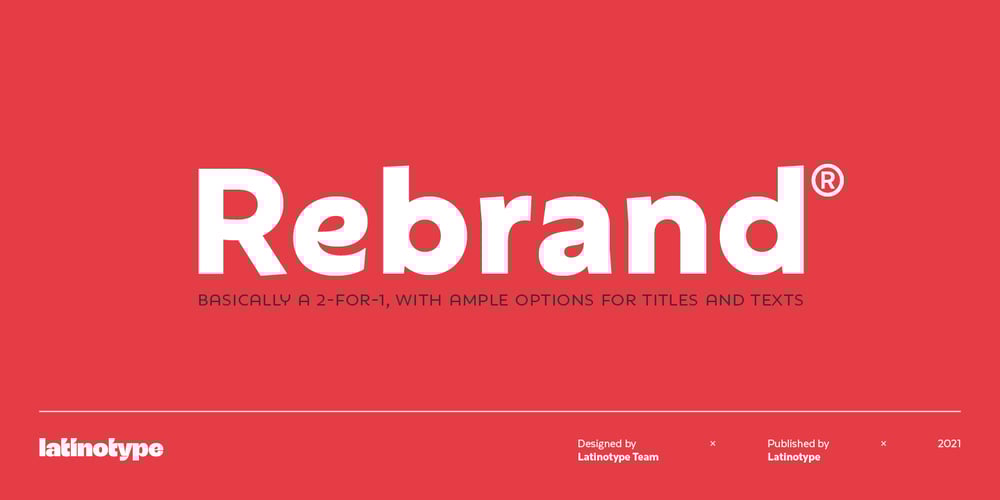
Rebrand
Rebrand font
Rebrand Font Family was designed by Latinotype Team and published by Latinotype. Rebrand contains 33 styles and family package options. Rebrand is all about geometry, a typography that boosts confidence. However, contrary to pure, cold mathematics, this font seeks a more jovial and friendly face. The goal with Rebrand is to offer a Geometric Sans Serif font that can work in various instances, from symbols and titles, to text, and everything in between. It also creates a whole lot of personality, ideal for branding. There are two versions: Display, which is more fluid and dynamic with nine programmed weights for a wide array of intensity. This version also has various alternative characters and swashes.Text, which has the same attitude as Display, but is a little more serious with seven programmed weights to provide distinctive extremes and subtle variations among the mid-tones. Both cover basic Cyrillic and come in small caps. Both create one phenomenal typography: Rebrand.